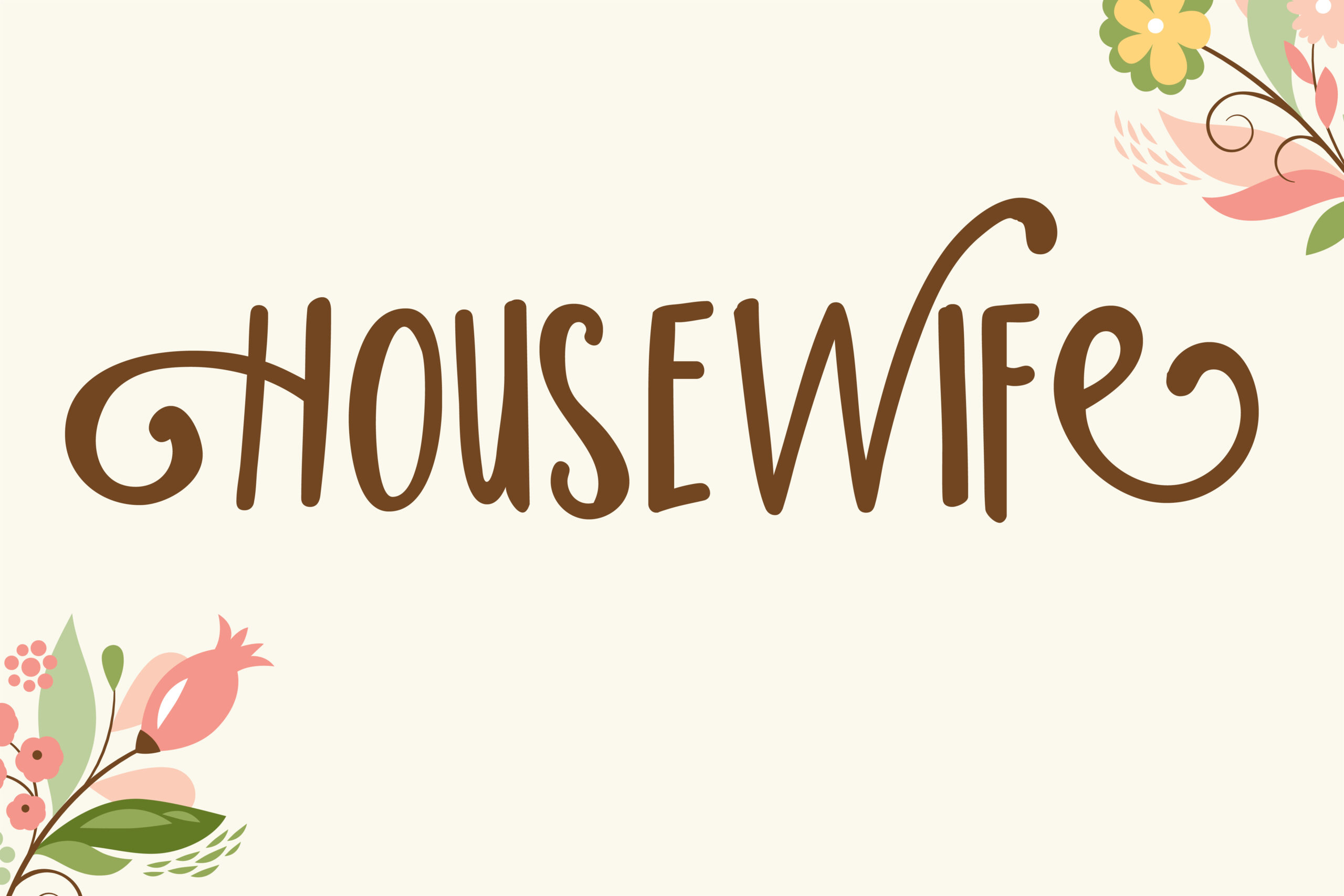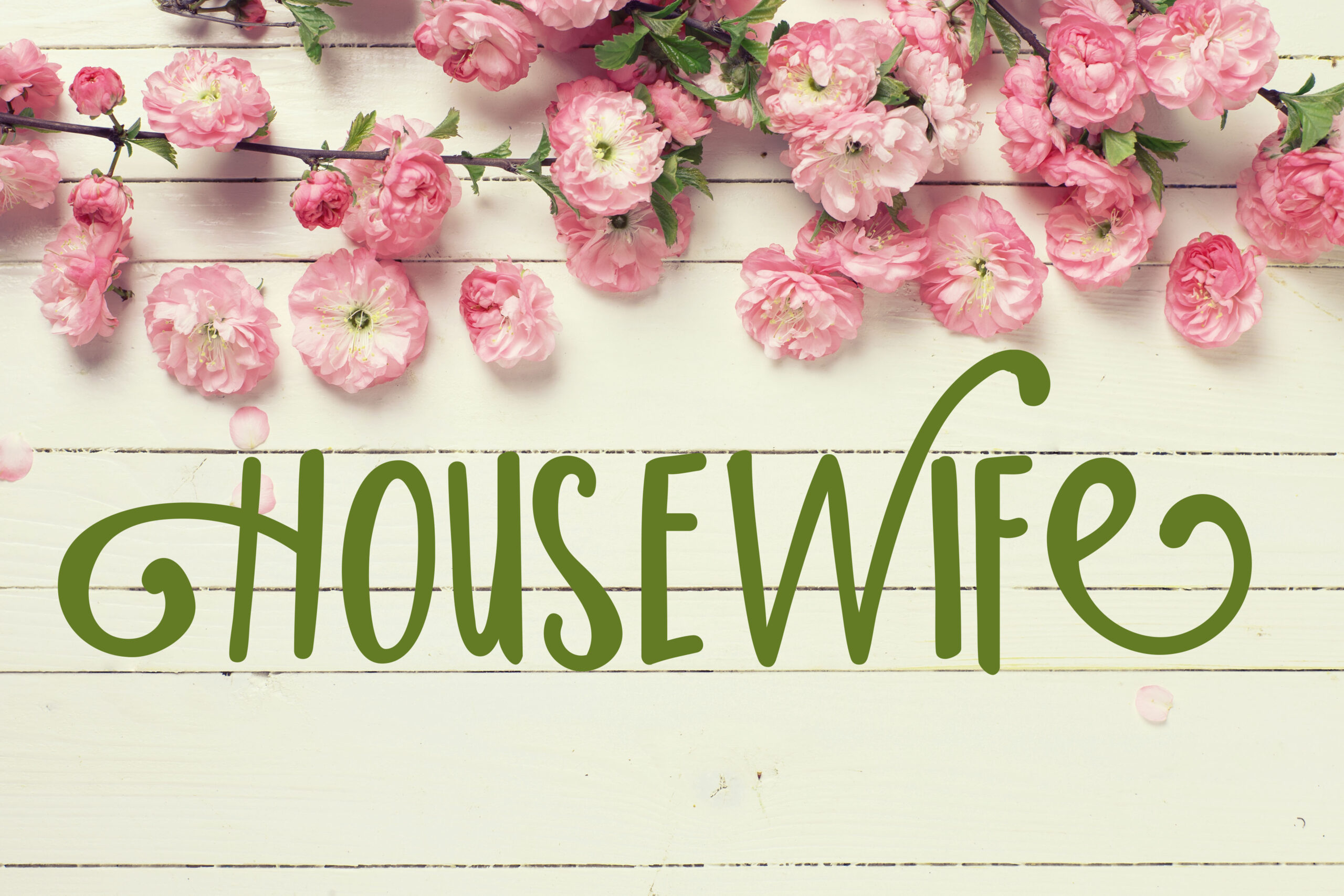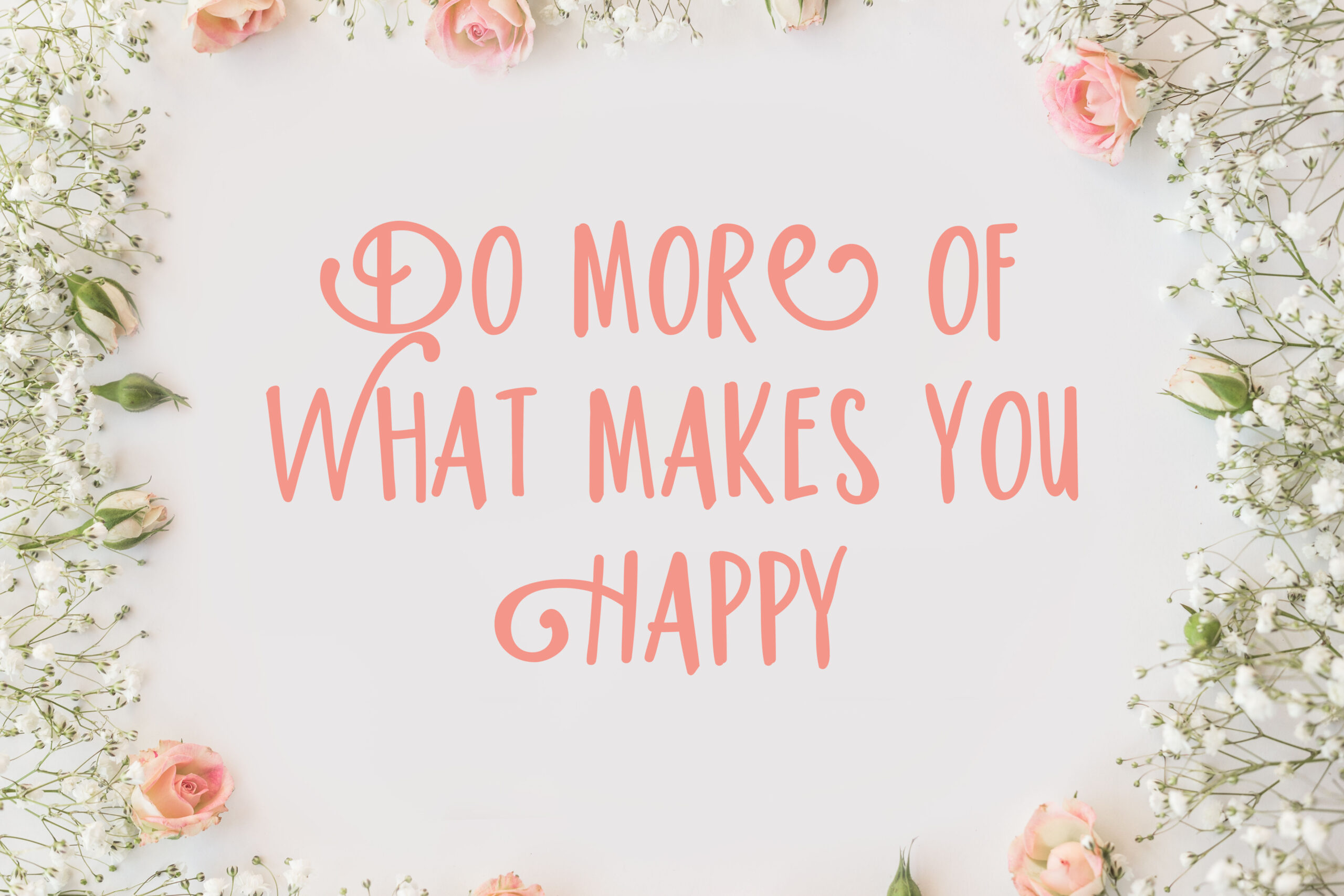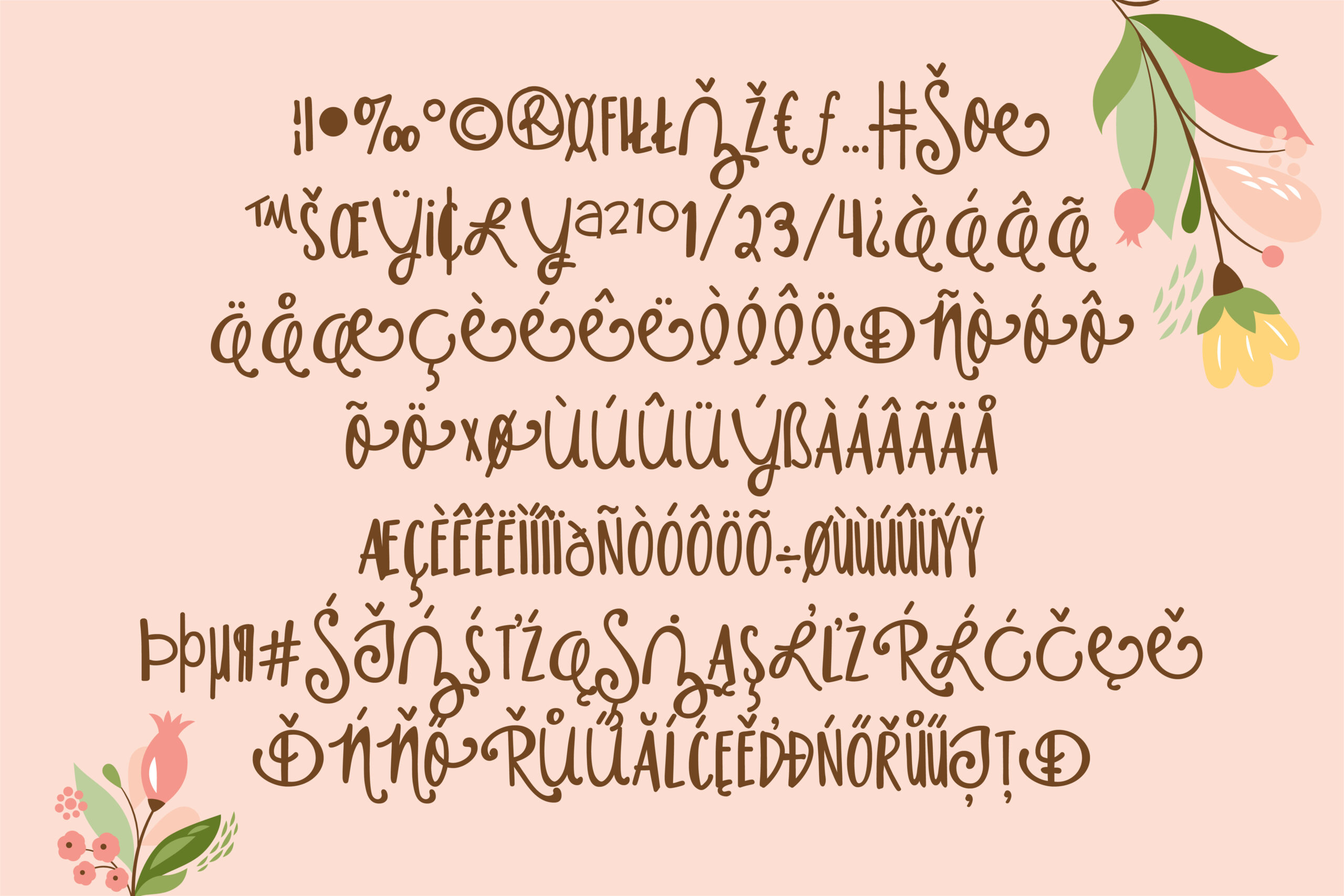
Housewife Font
About Housewife Font
“This hip, but whimsical font is like getting two fonts in one. The uppercase is a more decorative case that works best to begin or end words, and the lowercase set is simplistic. We suggest typing largely in the lowercase but mixing in the uppercase here and there for an artistic and creative look.”